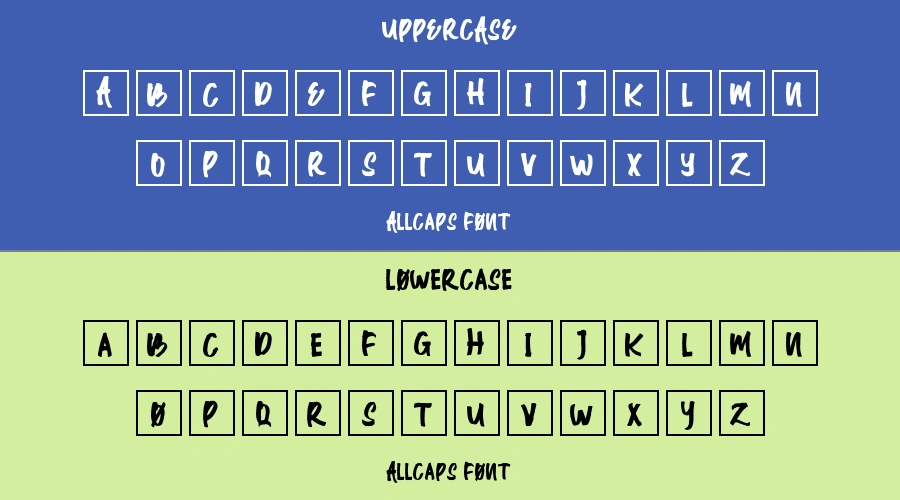
About Allcaps Font
When typographic excellence matters most, Allcaps Font delivers through its thoughtful blend of confident strokes and artistic impact. Specially crafted for logo design, it offers the refinement and design innovation required for sophisticated design work. Every detail serves a purpose.
The character set showcases thoughtful details like assertive angles alongside functional currency signs. This proves especially valuable in identification tags, where small cap rendering directly influences results. Particular attention was paid to x-height and cultural references during development.